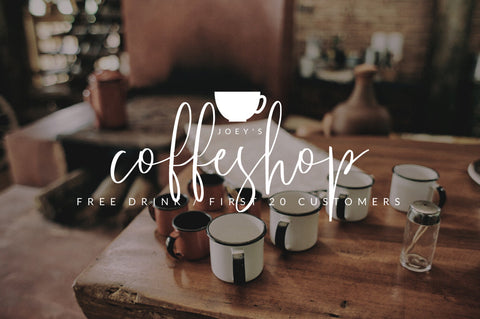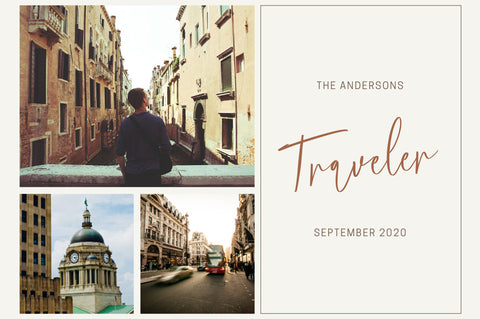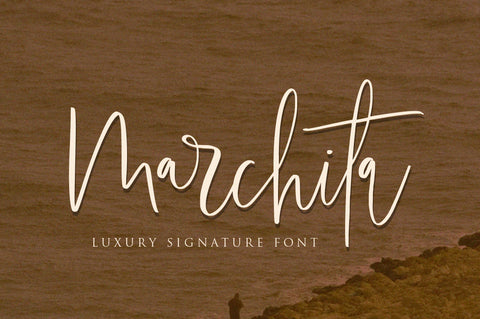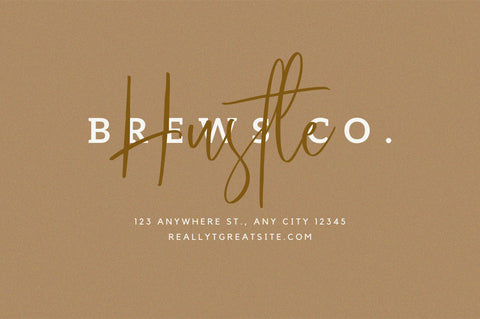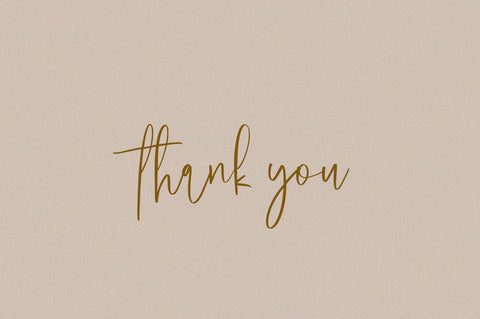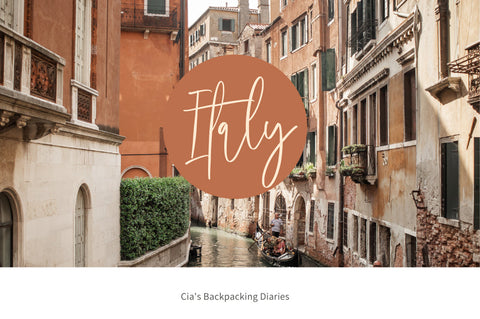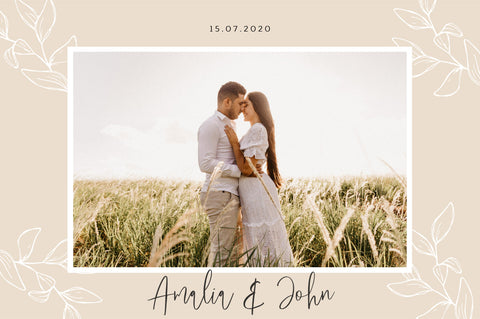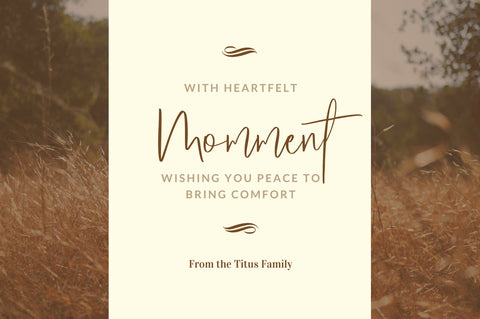
Marchita Script Font
Marchita is Modern Signature Font with tropical summer vibes also beautiful ligature and alternate font.
inspired by a luxury fashion. Contemporary handwriting fonts with ligatures and alternative styles ready to add unique look and bloom on your design
It easily cooperating together For Magazine, Movies, or Book Titles. For Photography, Wedding Invitation, Restaurant Menu or T-shirt Design. For Flyers, Banner Ads, web and printing. From Food and Fashion to a Cosmetics product
Marchita Font Features :
• Upper + Lowercase Letters
• Numbers + Punctuation
• Ligature Feature
• OpenType features